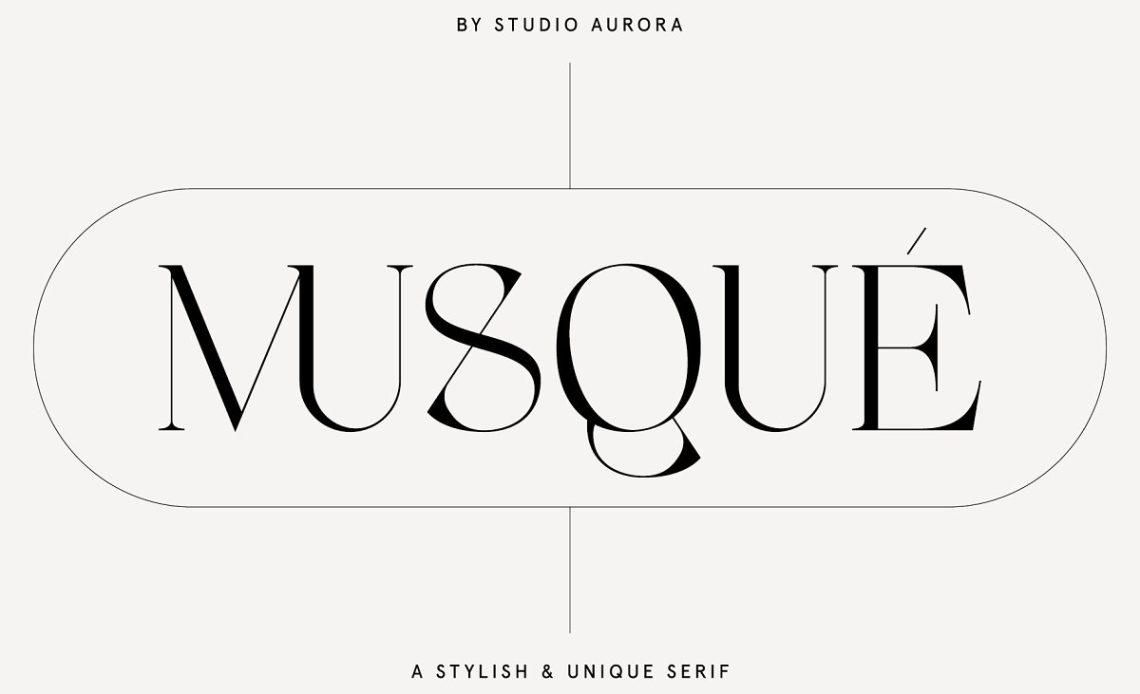
Are you looking for a unique and elegant display font that will elevate your designs to the next level? Look no further than Musque, created by Studio Aurora. With its contemporary, trendy design and interesting character and ligatures, Musque is the perfect font for all your design needs.
Primarily a display font, Musque is recommended for use in magazines (titles and layouts), logos and branding, invitations, quotes, blog headers, posters, and advertising. But don't let that limit your creativity - this versatile font can also be used for body copy.
Musque is more than just a pretty face - it also offers multilingual support for a variety of languages, including Afrikaans, Albanian, Catalan, Danish, Dutch, English, French, German, Italian, Norwegian, Portuguese, Spanish, Swedish, and Zulu. Plus, it comes with all the punctuation and numbers you need, as well as alternate glyphs, standard and discretionary ligatures, and a webfont version.
If you're looking for a font for wedding invitations, Musque is the perfect choice. Its elegant and fashionable design will set the tone for your special day and leave a lasting impression on your guests.